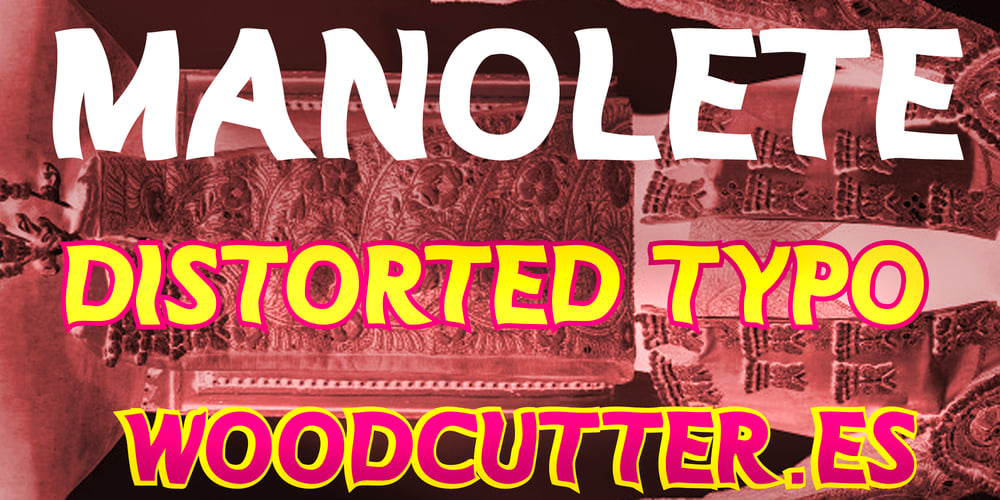
Manolete Font Family was designed by Jordi Manero and published by Woodcutter. Manolete contains 1 styles and family package options. “Manolete font features wavy uppercase letters, as if they were possessed by the waves of the sea. With its fluid and undulating appearance, this font evokes a sense of movement and dynamism. Ideal for projects seeking to convey a coastal or aquatic theme, ‘Manolete’ adds a touch of organic elegance to your designs. Perfect for branding, logos, and signage, this font captures the essence of the ocean’s rhythmic flow, infusing your projects with a sense of fluidity and grace.”